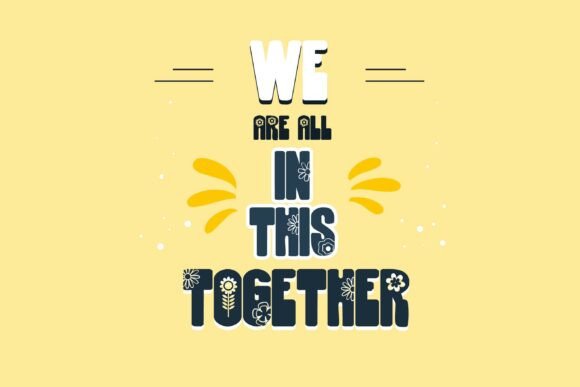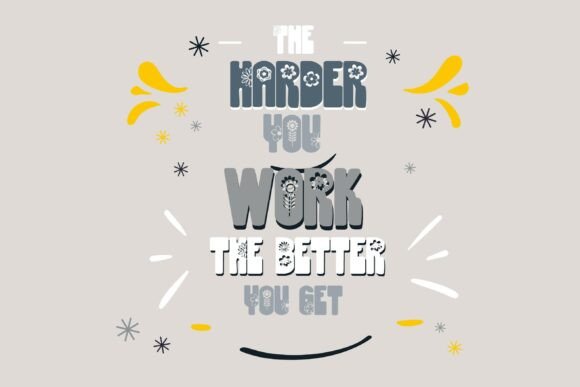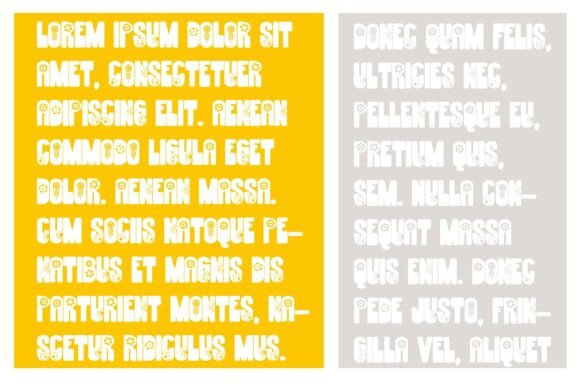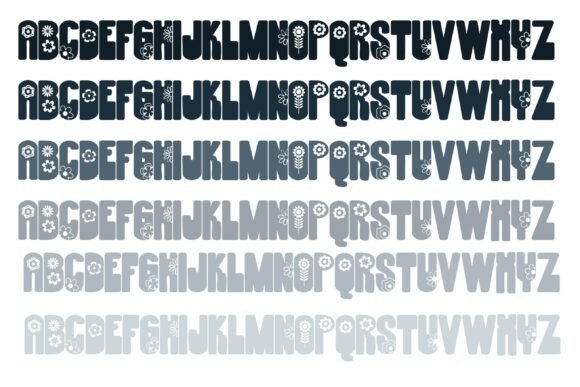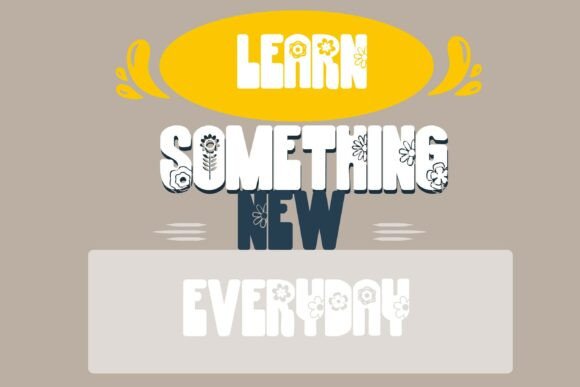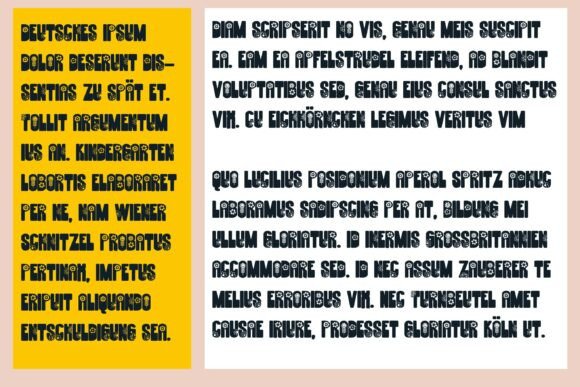
Introduction to Copacetic Spring Family Font
Copacetic Spring: A Retro Flower Font Forge a path of visual nostalgia with Copacetic Spring, a bold display font that channels the groovy energy of the 1970s.
Characterized by its heavy visual weight and โmeltingโ negative-space floral cutouts, this typeface captures a psychedelic-garden aesthetic It is a powerhouse for any project that needs to feel established, rebellious, and undeniably funky.
Key Features of Copacetic Spring Family Font
Why Choose Copacetic Spring Family Font?